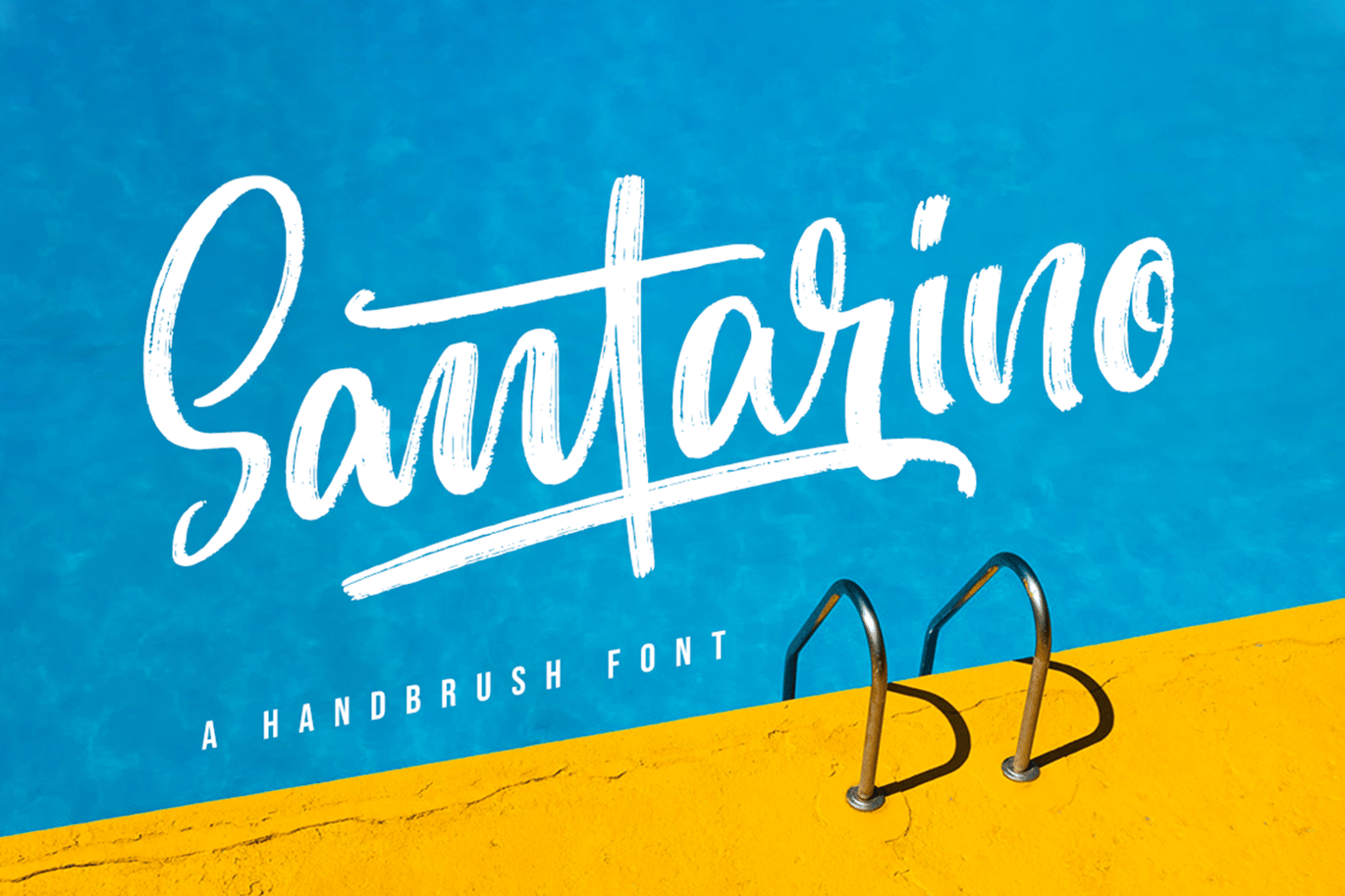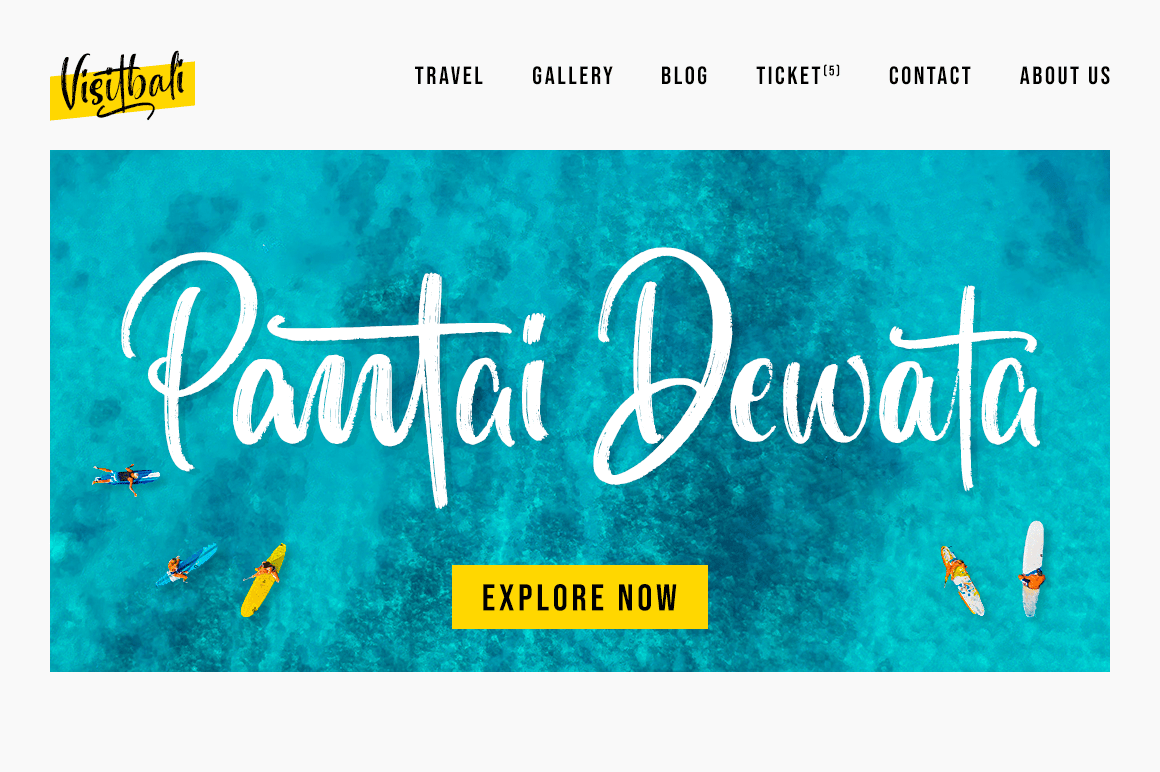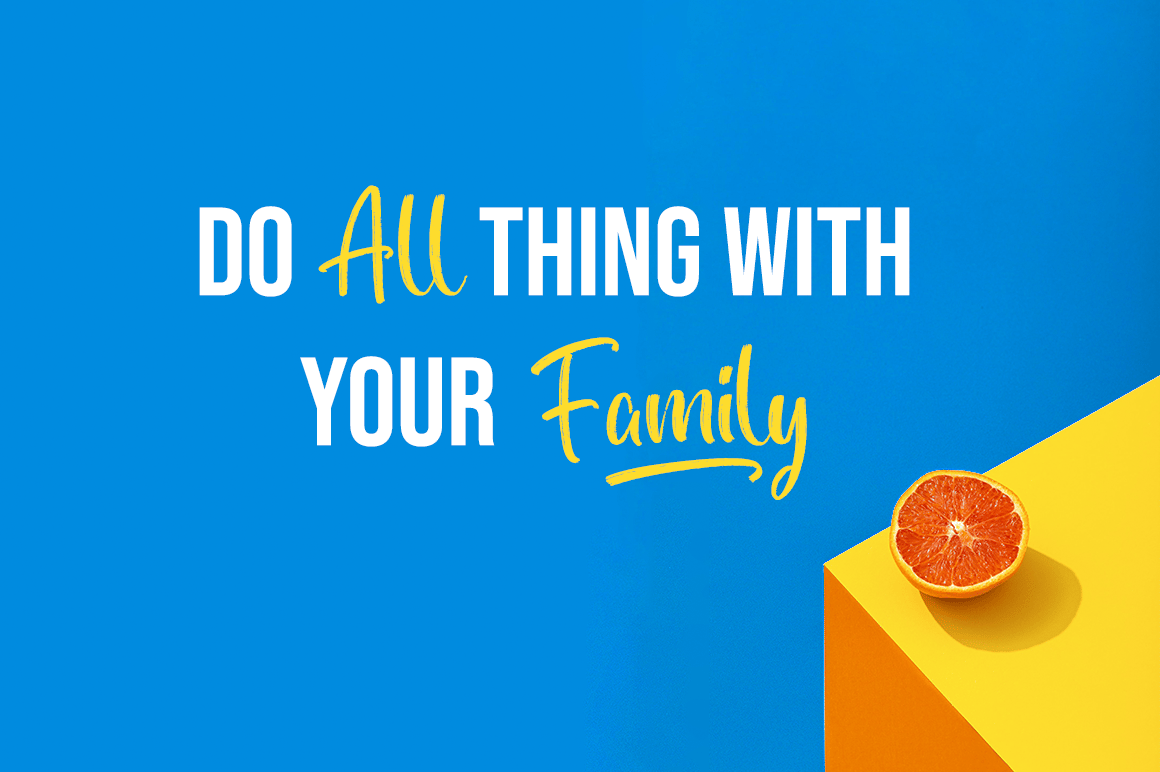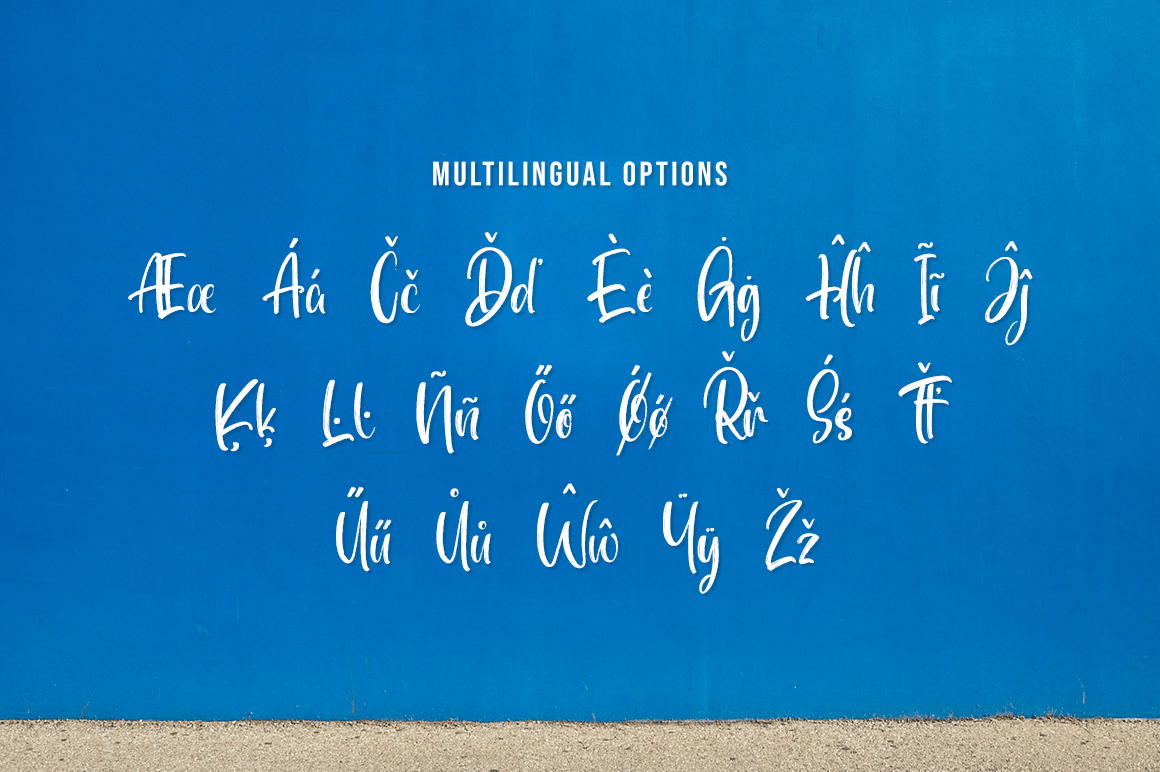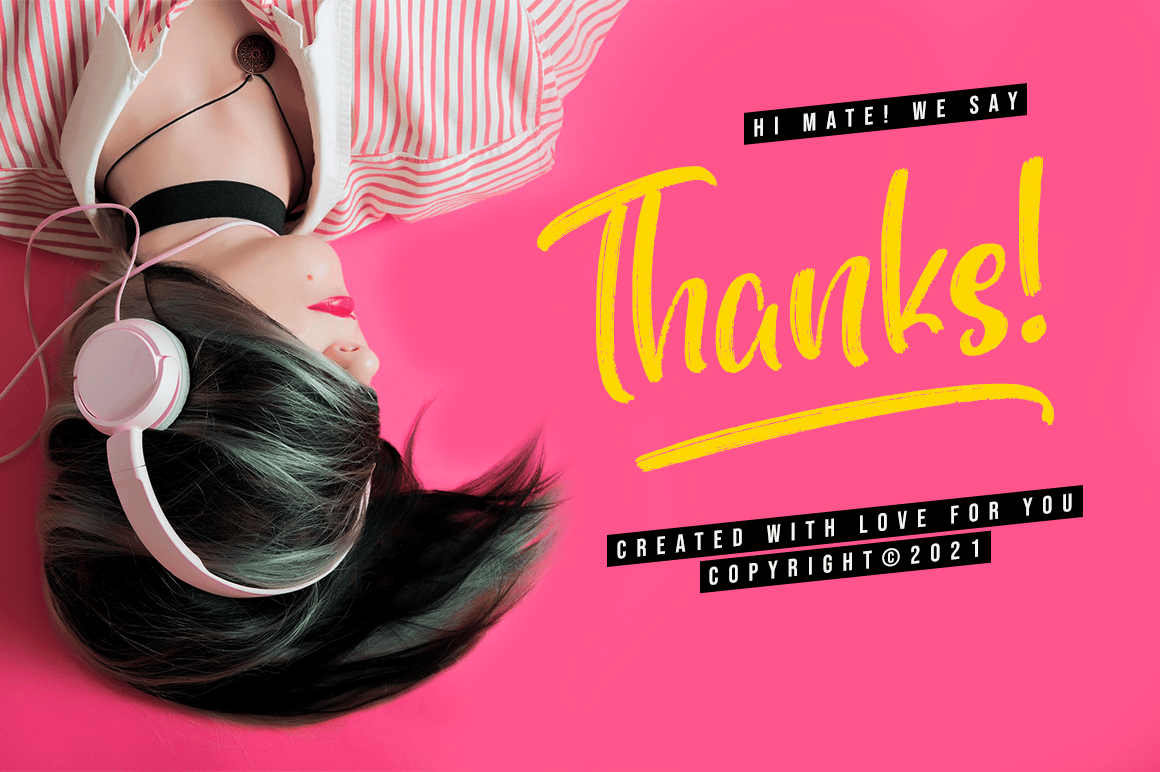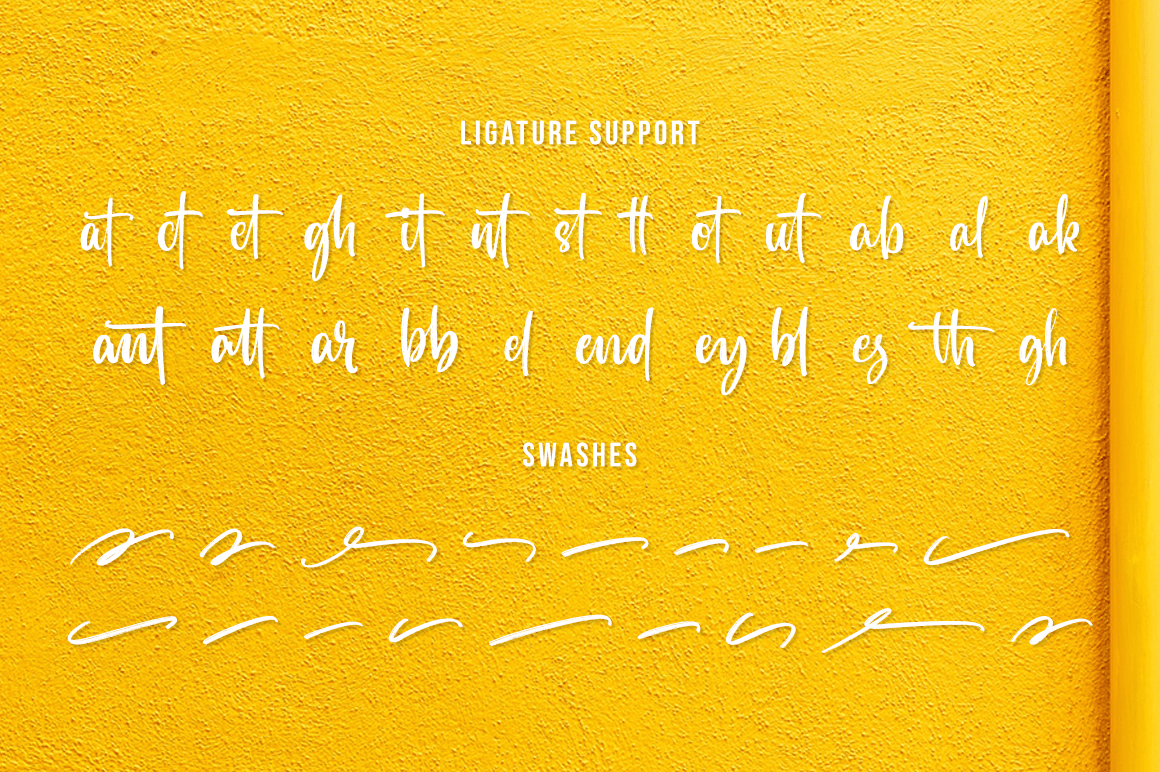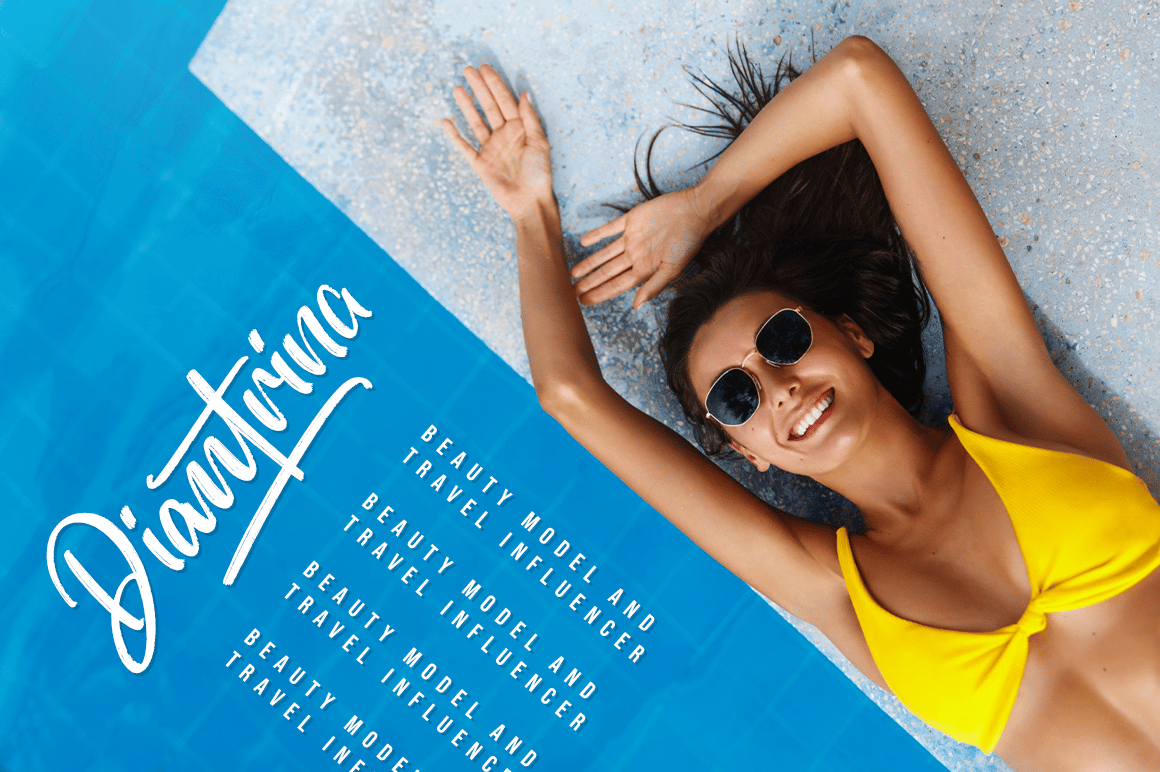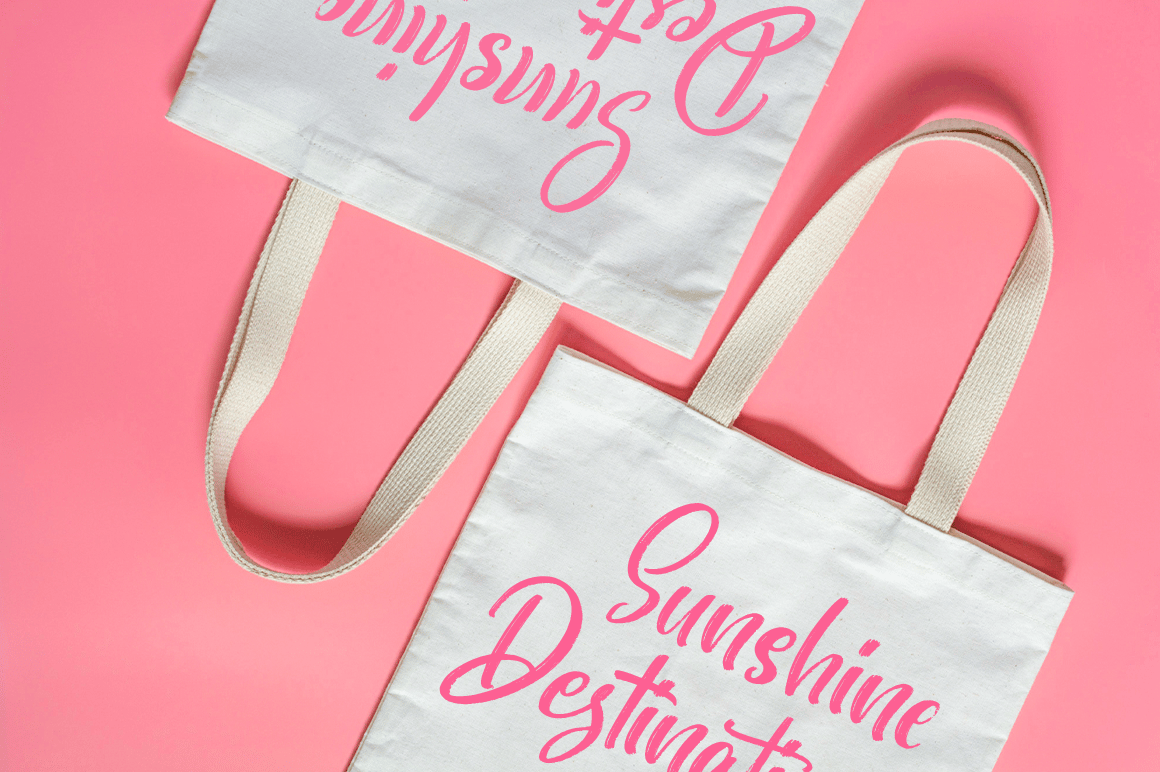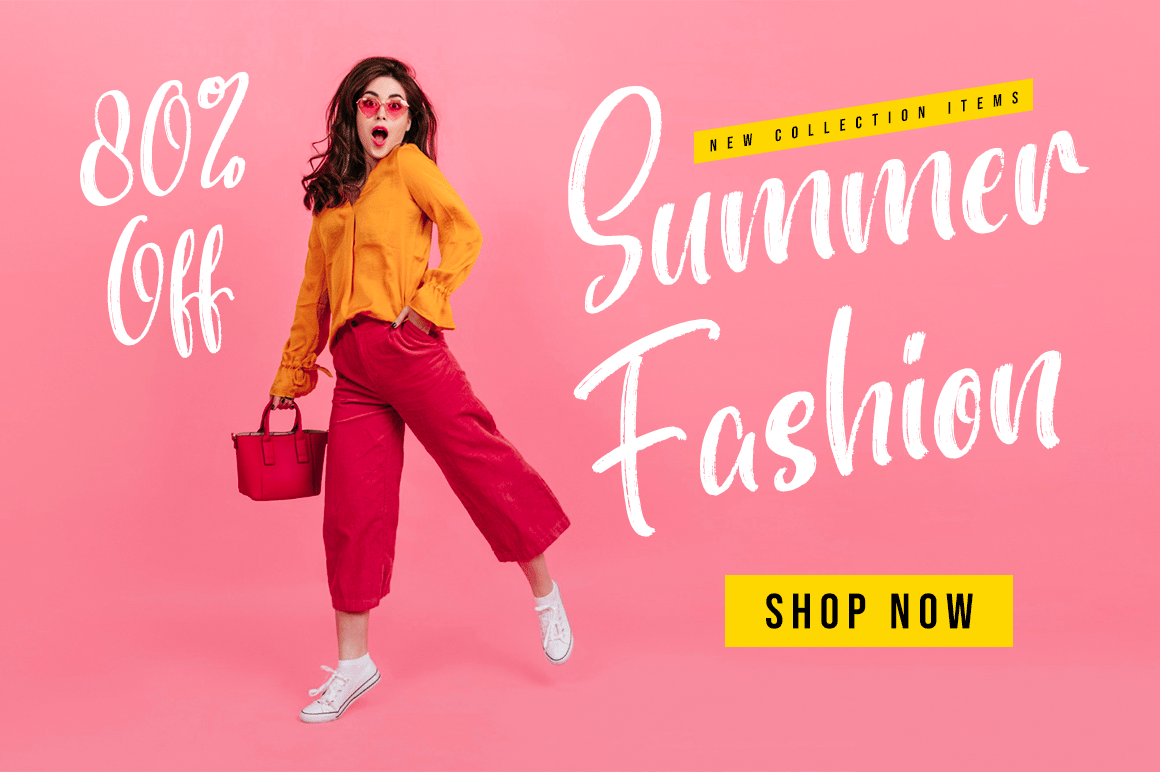
Santarino – Summer Font
Santarino is a modern and fresh brush font, right in time for summer! This font has a breezy, summery feel that will give all your designs a completely contemporary vibe.